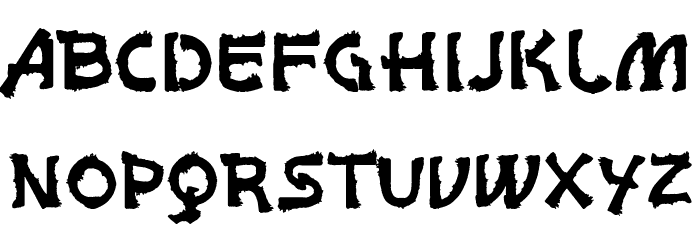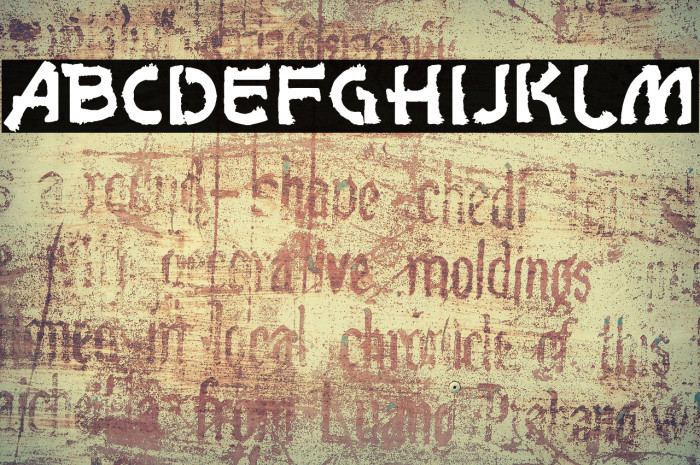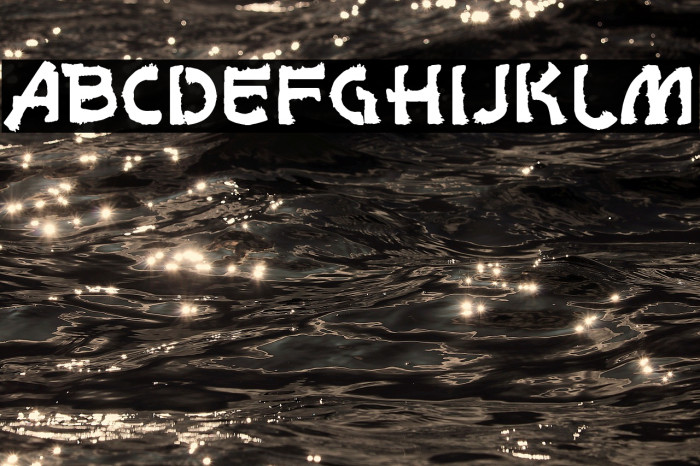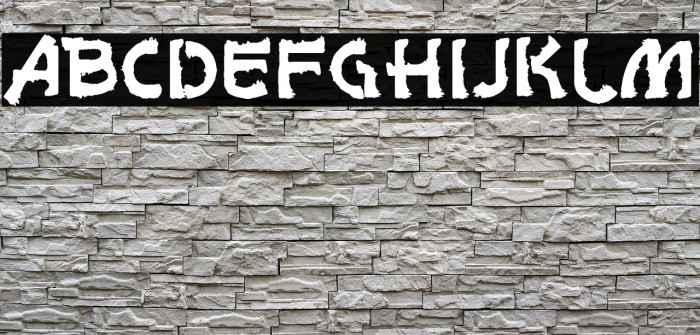
vtks white page Font
This font features a bold and rugged design, characterized by its rough, textured edges and uneven strokes. The letters have a hand-drawn appearance, giving them a unique and artistic flair. The uppercase and lowercase letters maintain a consistent style, with each character exhibiting a slightly distressed look. This font is ideal for projects that require a touch of grunge or a vintage aesthetic. The numbers and special characters follow the same design principles, ensuring a cohesive look across all text elements.
A bold, textured font with a hand-drawn, grunge style.
- Proposed Projects: Ideal for posters, album covers, and artistic projects that require a bold, vintage look.
- Overall Style: Vintage, Grunge